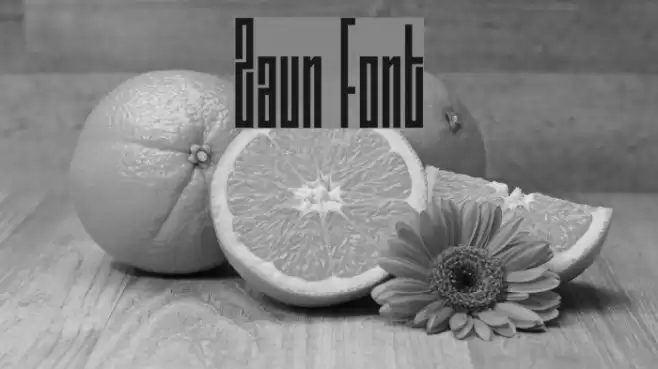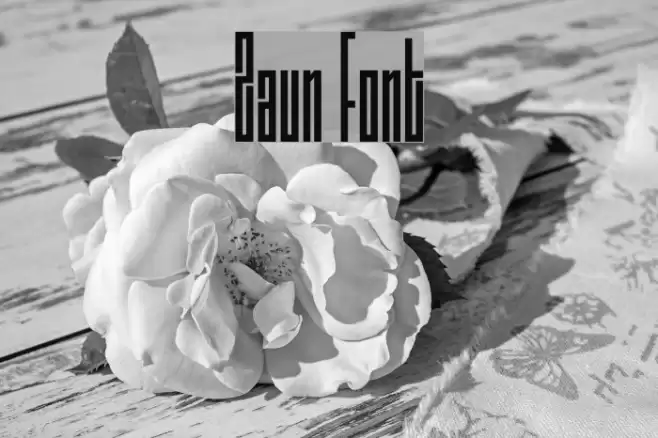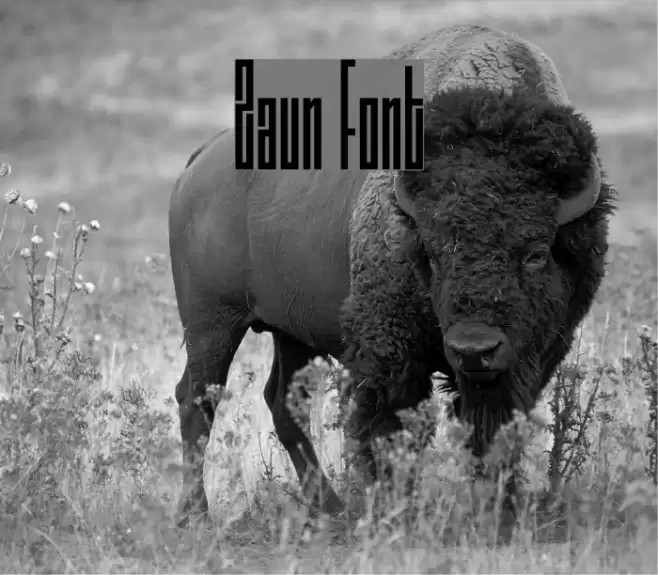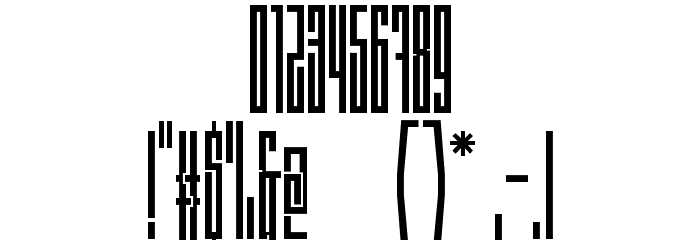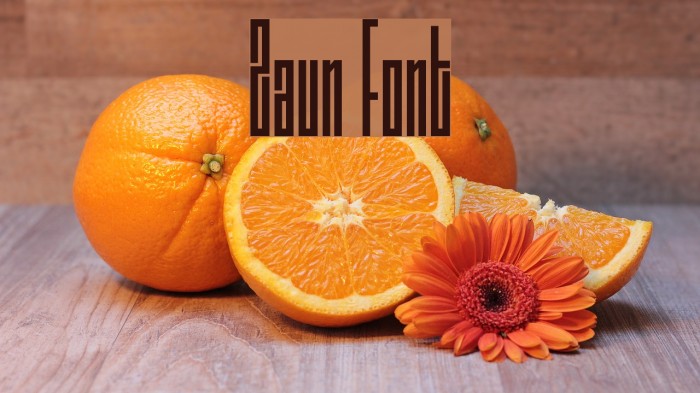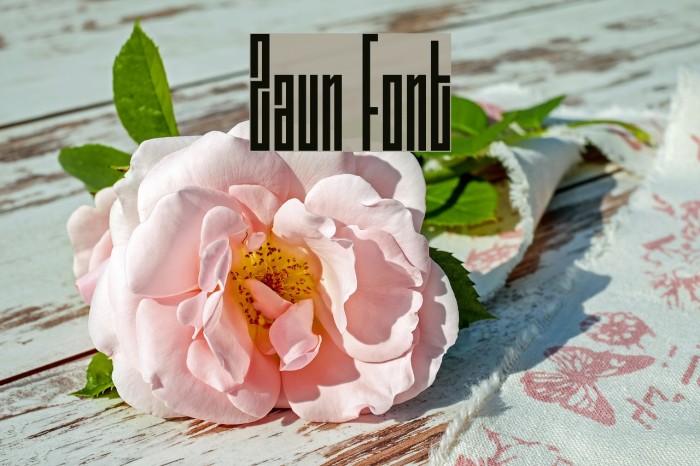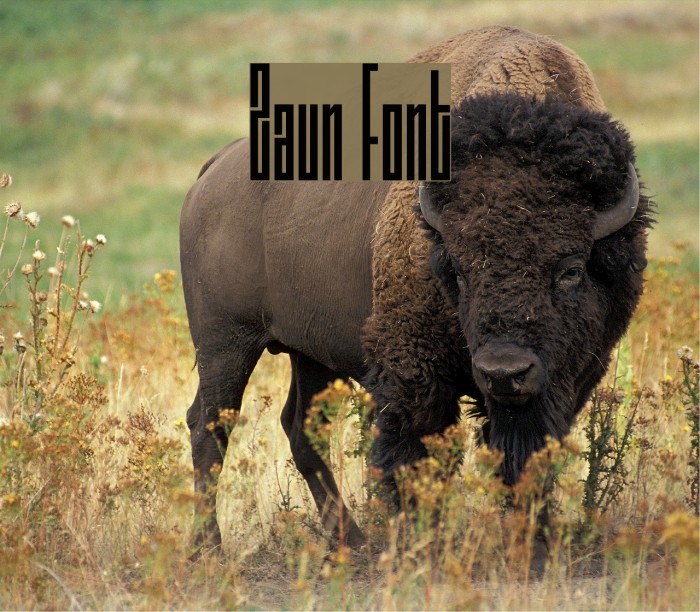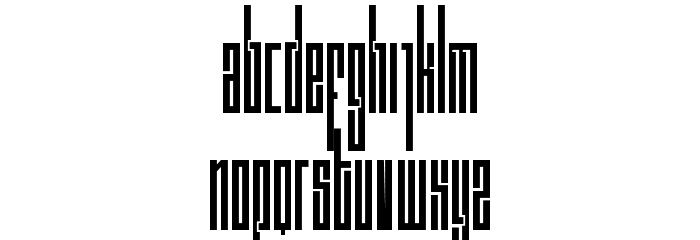
Zaun Font
Zaun Description
This font features a highly condensed and elongated design, characterized by its tall and narrow letterforms. The vertical emphasis is pronounced, with each character maintaining a consistent height, creating a uniform and structured appearance. The strokes are bold and solid, providing a strong visual impact. The font's geometric nature is evident in its straight lines and sharp angles, giving it a modern and industrial feel. The uppercase and lowercase letters share similar proportions, enhancing the cohesive look. The numerals and special characters follow the same design principles, ensuring consistency across all glyphs.
A tall, condensed font with bold, geometric letterforms and a modern industrial style from Futuristic fonts.
- Proposed Projects: Ideal for projects requiring a strong visual impact, such as posters, headlines, branding, and signage.
- Character Spacing: Tight